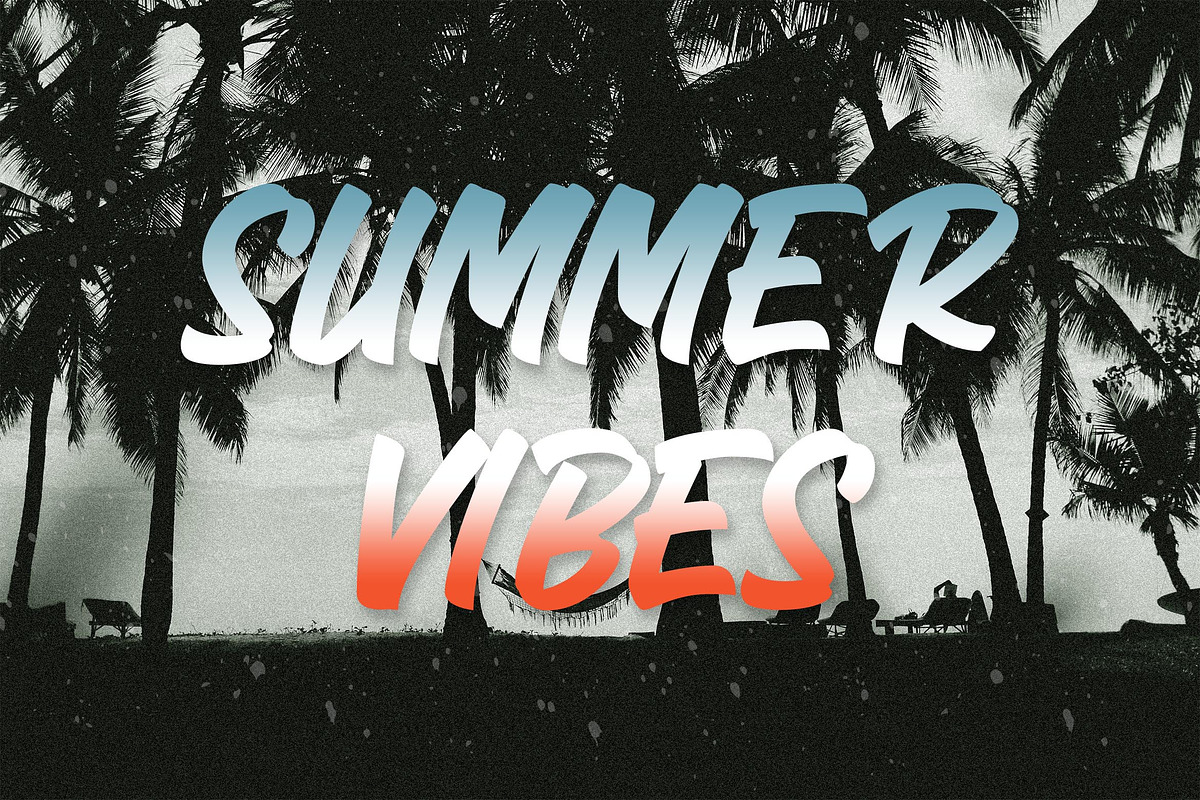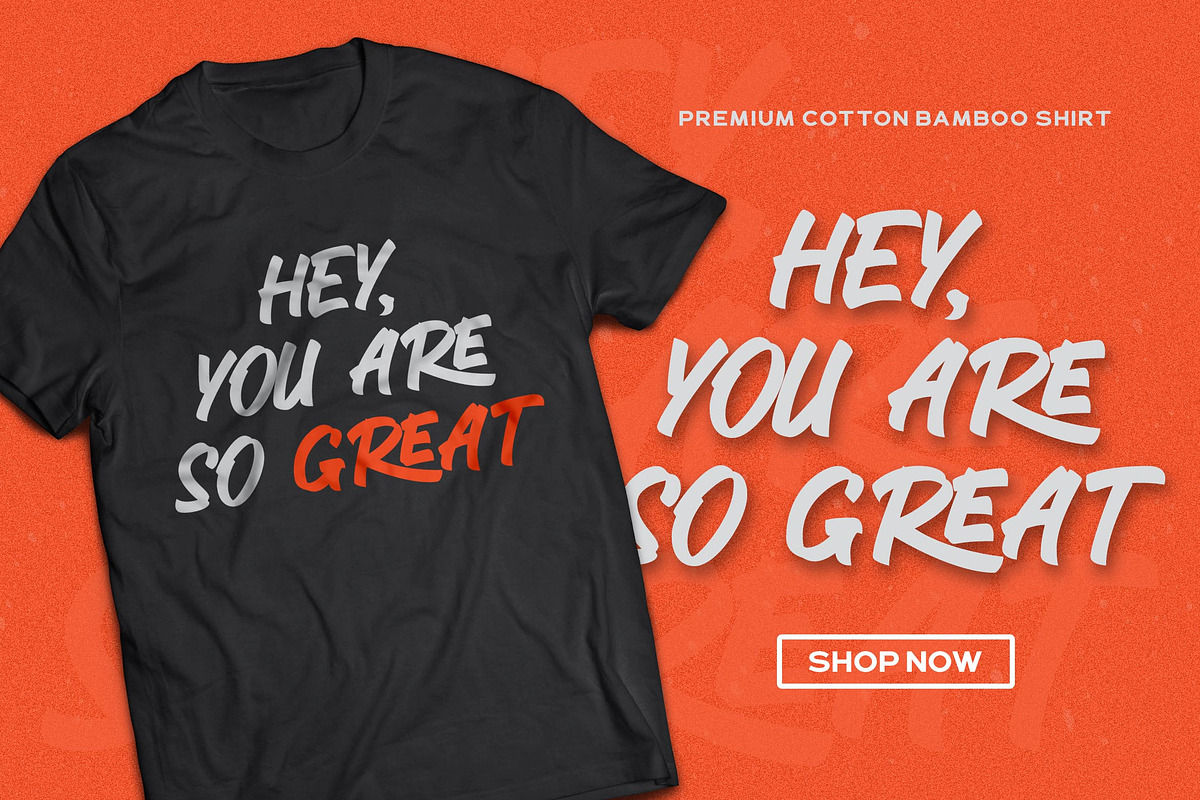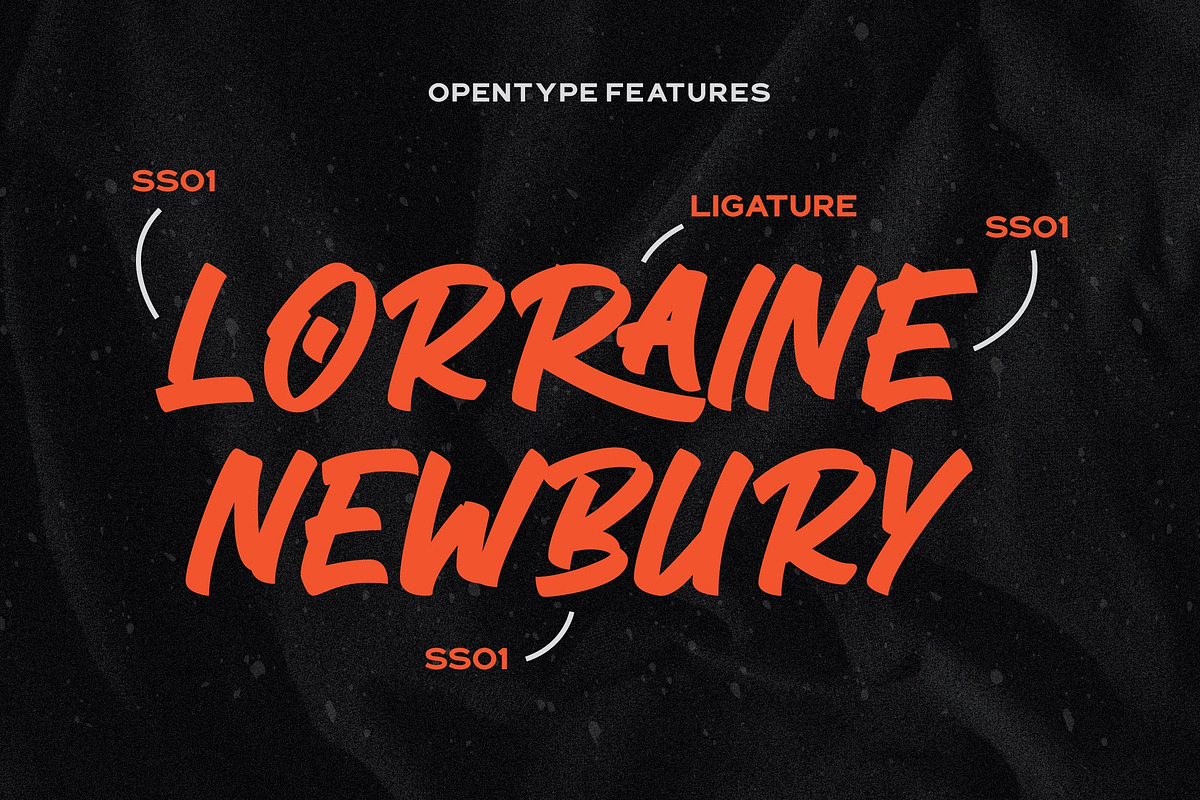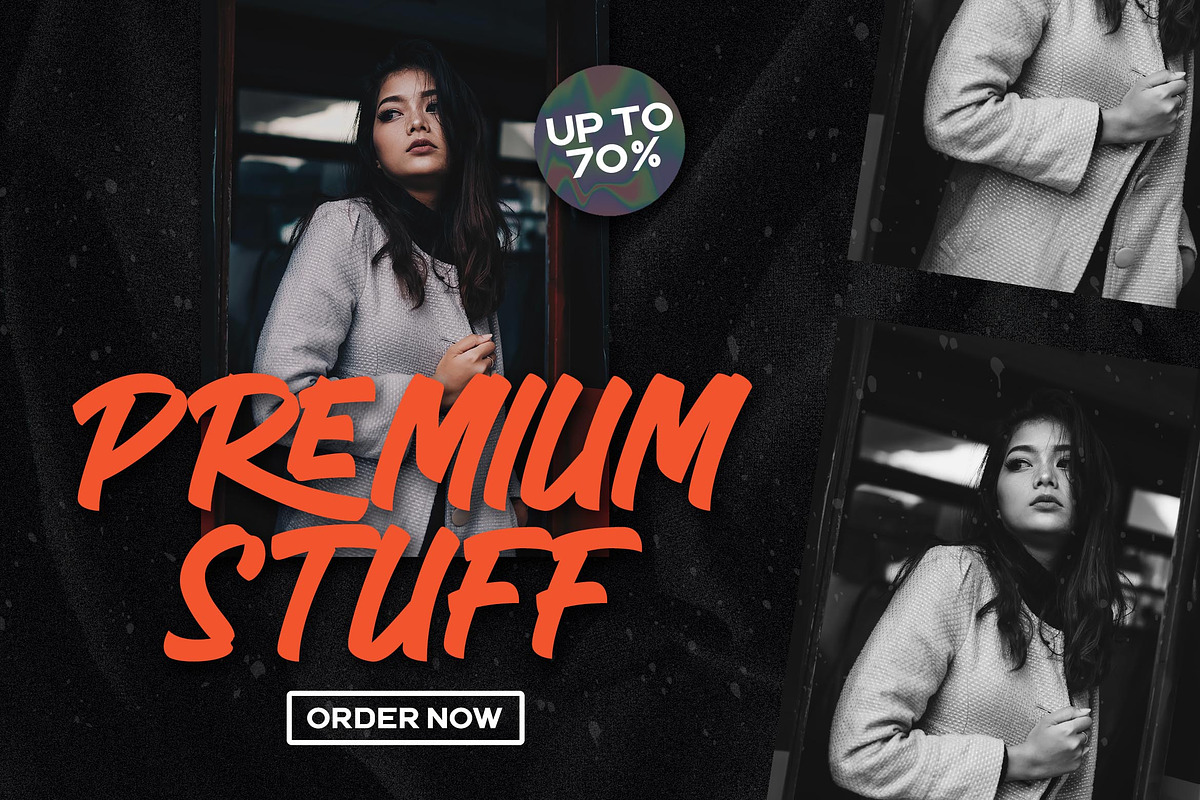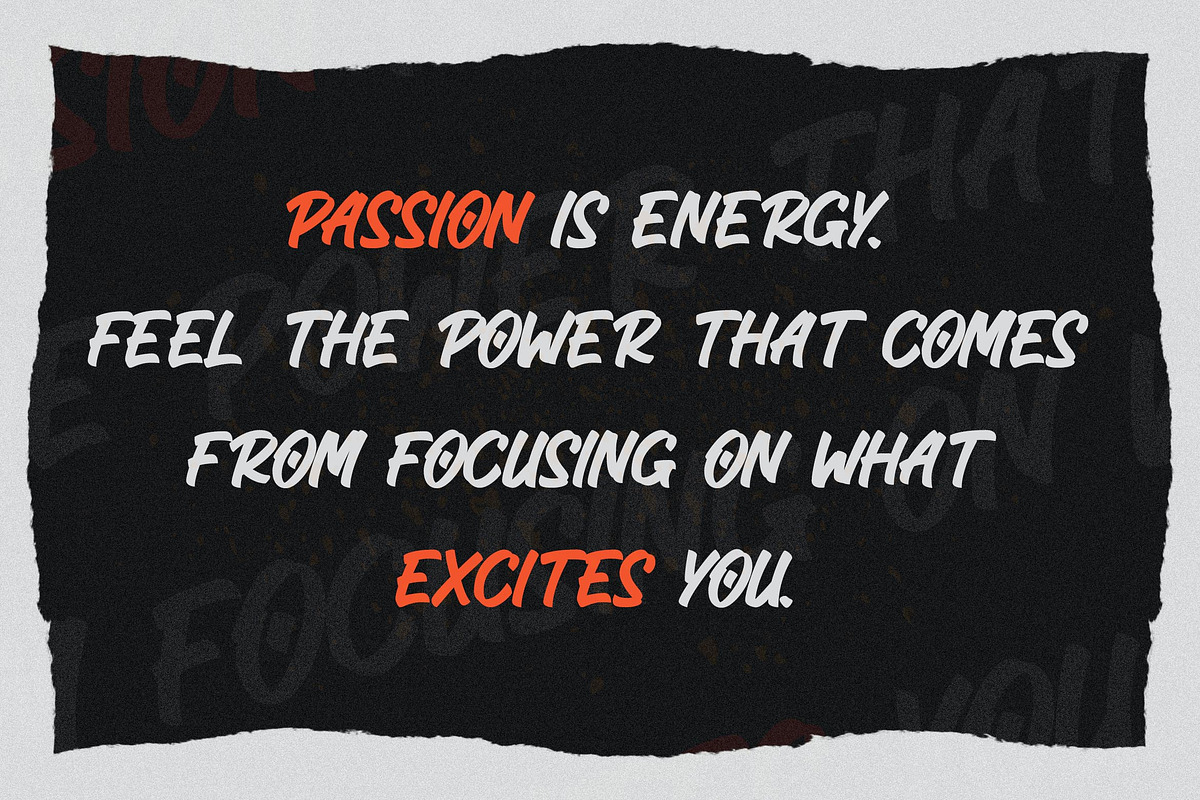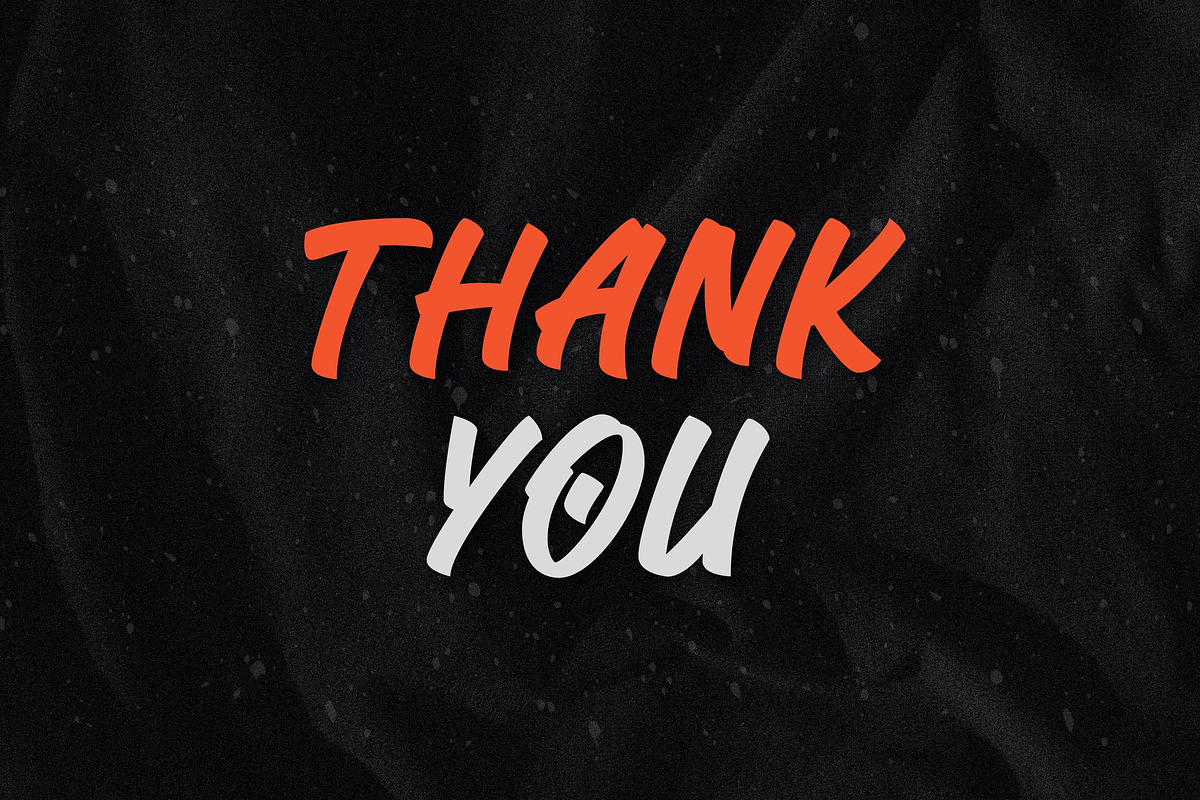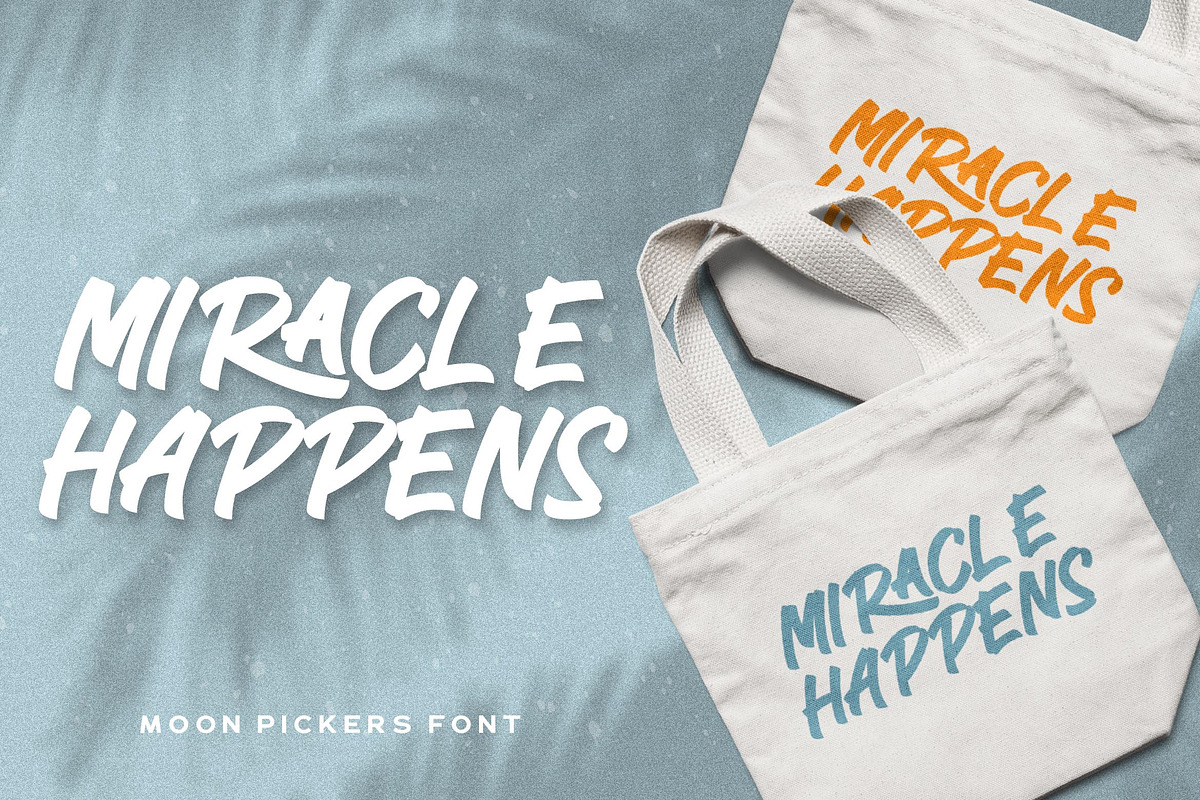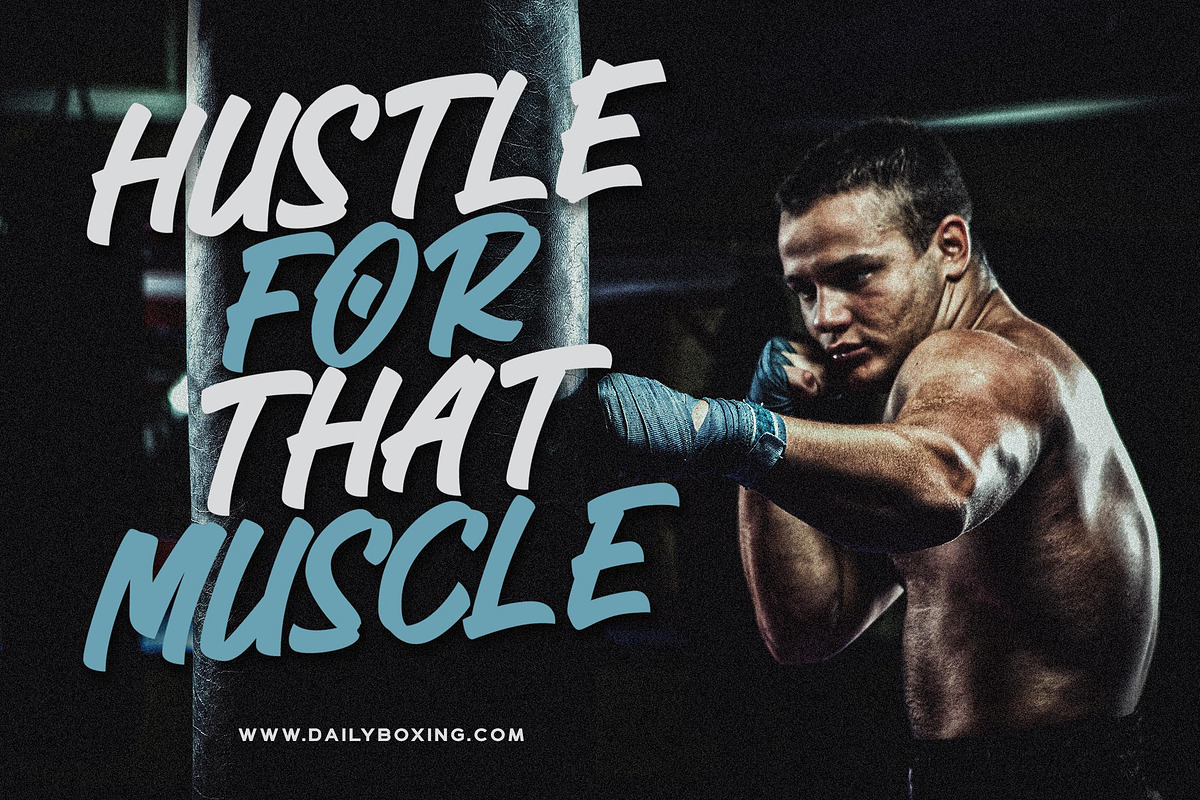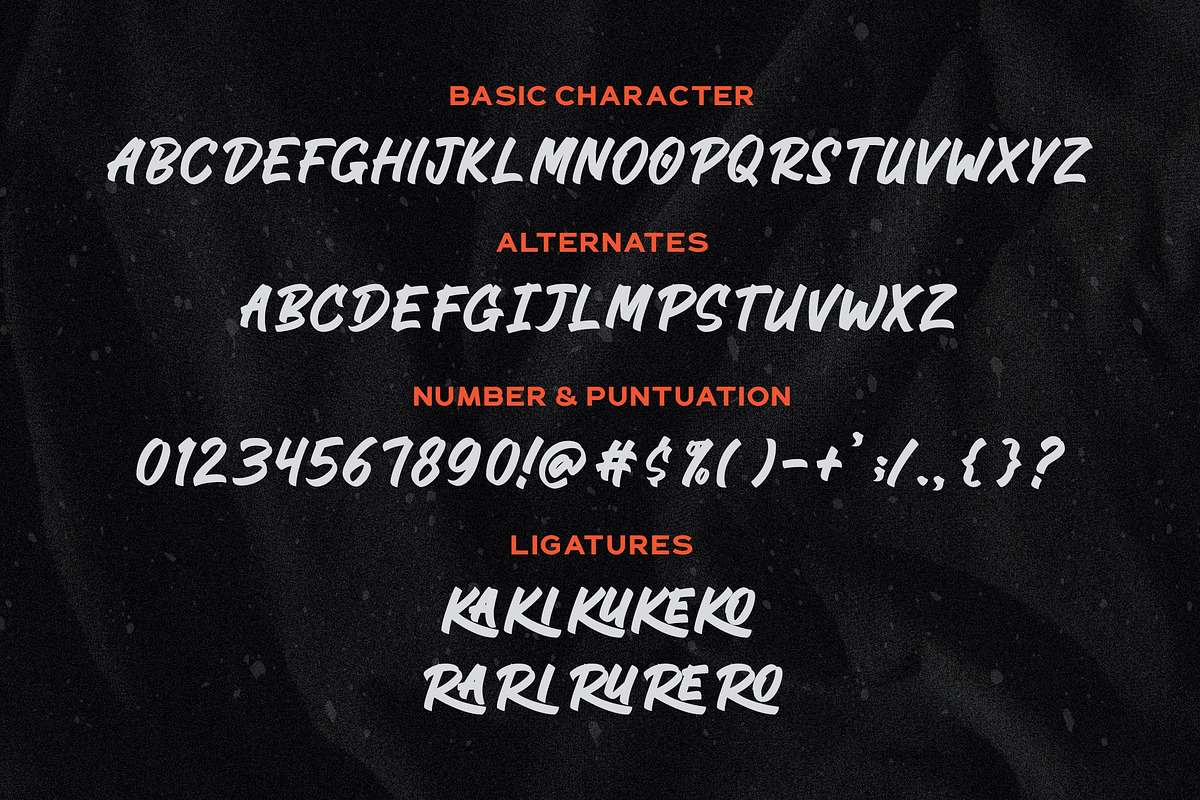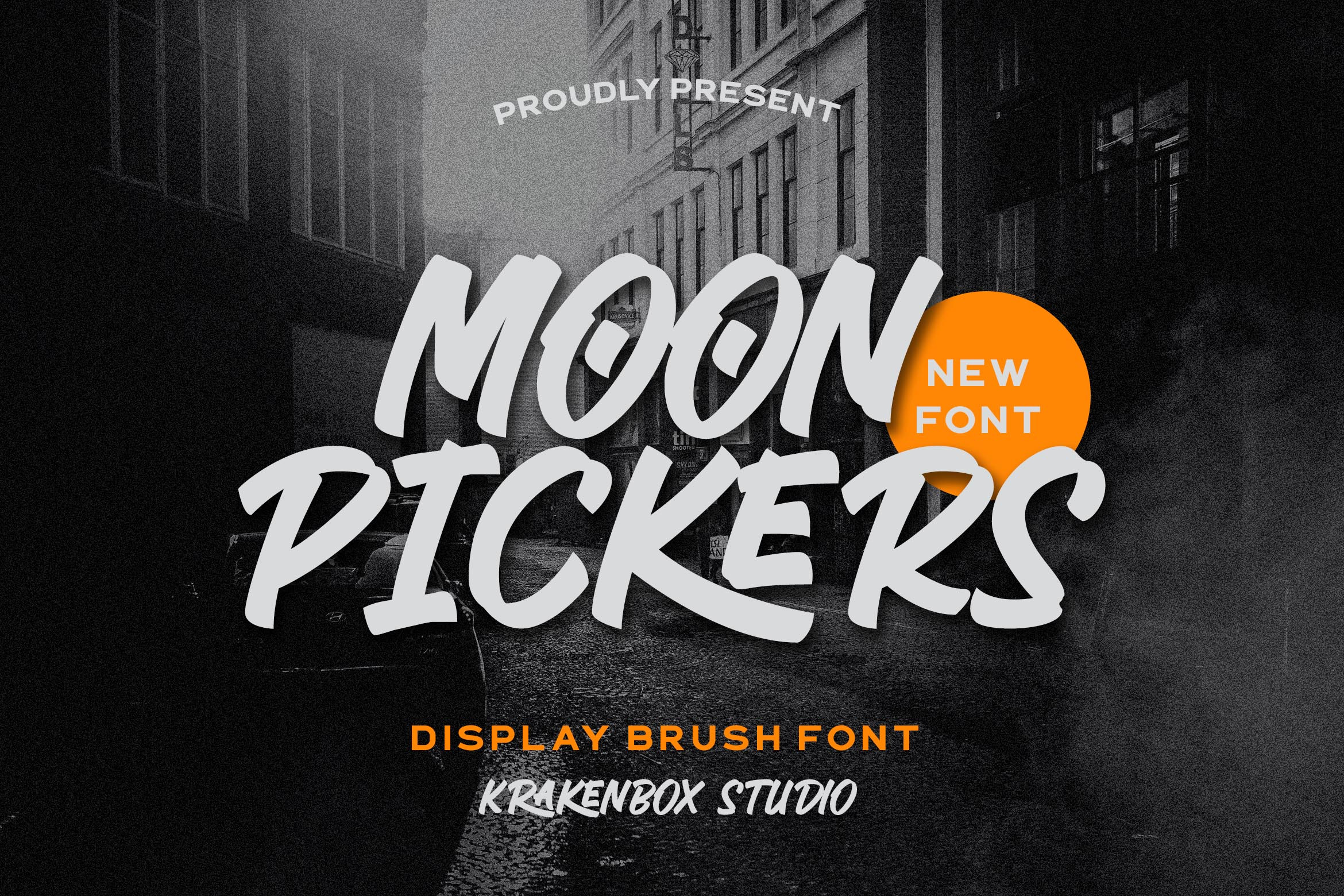
Moon Pickers - Display Brush Font
Introducing Moon Pickers - Display Brush Font by KrakenBox
Moon Pickers is a cool and brushed display font, with textured inky touches. Its has urban, vintage, cool vibes and a modern look. It is a fantastic choice for fashion, signature, album covers logos, branding, magazines, social media posts, and many more.
Moon Pickers is best for:
- logos, branding, & Signatures.
- Flyers, Album cover, Magazine, & Advertisements.
- Website design , design blogs, & fashion.
- Quote graphics for social media.
- and also it works great for other projects.